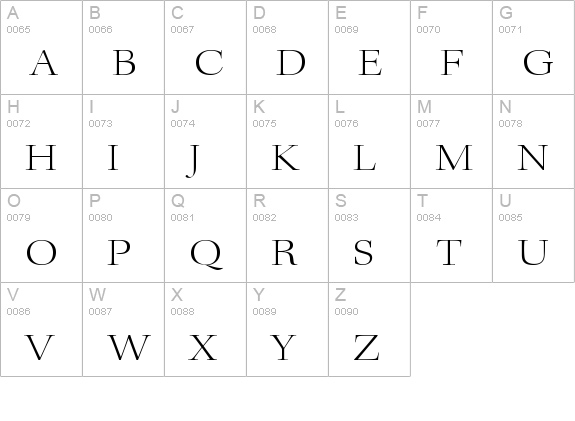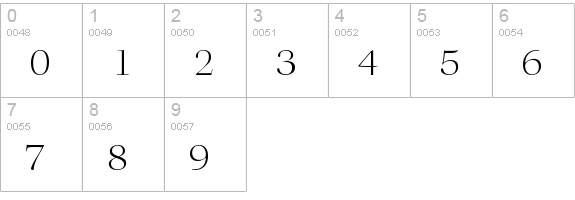
Kepler Std Light Extended Display Font Details
Kepler Std Light Extended Display is a refined, elegant, extended-width variant in the Kepler typeface family \xE2\x80\x94 well suited to elegant body text, refined sub-headings, and luxury branding.
Kepler Std Light Extended Display is a stunning font that effortlessly combines elegance and readability. With its sleek and slender letterforms, this font is perfect for adding a touch of sophistication to any design project. Designed specifically for display purposes, Kepler Std Light Extended Display is ideal for headlines, titles, and other large-scale typographic elements. Its extended proportions give it a unique and eye-catching appearance, making it stand out from the crowd. The clean and crisp lines of Kepler Std Light Extended Display make it highly legible, even at smaller sizes. This font is a testament to the meticulous attention to detail that went into its creation, ensuring that every character is perfectly balanced and harmonious. One of the best features of Kepler Std Light Extended Display is that it is free. Yes, you read that right - this remarkable font is freely available to download at FontsMarket.com. Whether you are a professional designer or a hobbyist, you can easily access this font and enhance your creations without any cost. So why wait? Download Kepler Std Light Extended Display today and experience the beauty and versatility of this remarkable font. Transform your designs into works of art with its elegant and sophisticated aesthetic.